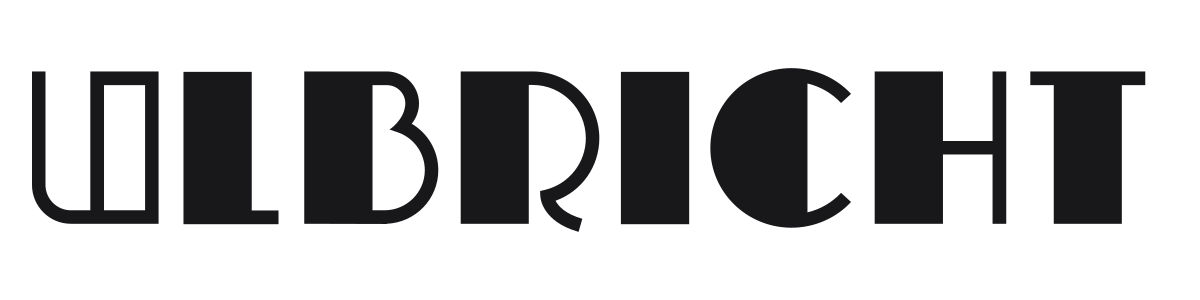
Ulbricht
Ulbricht is a bold, geometric display face from Ulrich Vinyl that draws heavily from Art Deco lettering traditions, with strong vertical emphasis and decorative details that recall 1920s and '30s poster typography. The uppercase-only character set keeps it firmly in headline territory, built for titles, signage, and vintage-themed branding where architectural elegance and visual weight need to coexist. It's got that distinct period confidence without feeling like a museum piece.